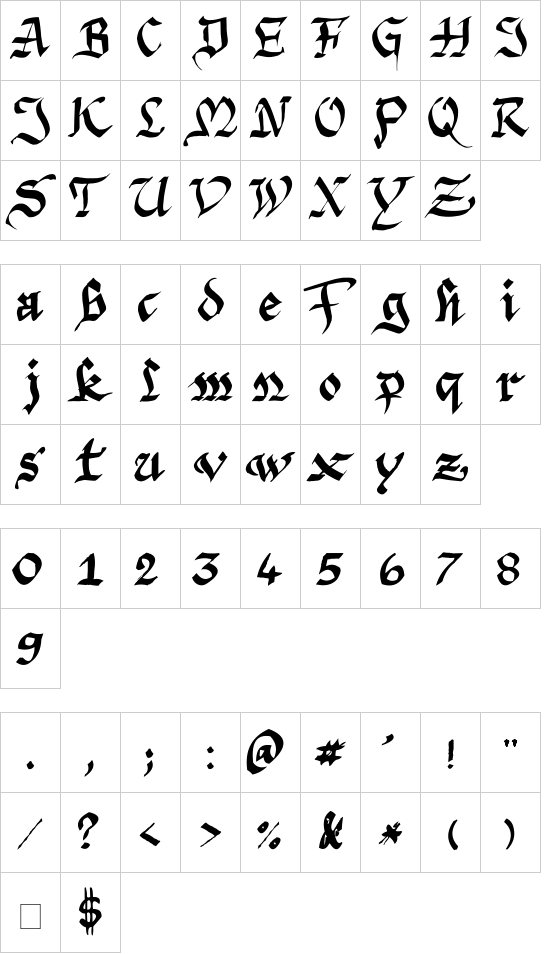
Argor Priht Scaqh is an Old English calligraphic typeface with elegant blackletter strokes drawn as if by quill. The forms hold the angular breaks and fine hairlines of gothic script, carrying a scholarly, medieval mood that suggests old ledgers, charters, and hand-lettered title pages.
Use Argor Priht Scaqh for certificates, fantasy branding, formal invitations, and historic-themed posters where antique penmanship suits the tone. The font is free to download as a TrueType file, and the preview lets you run your own text through it to see how its quill-drawn blackletter forms read across a heading or short line.